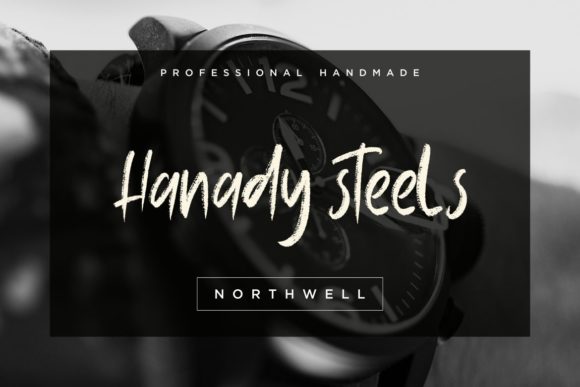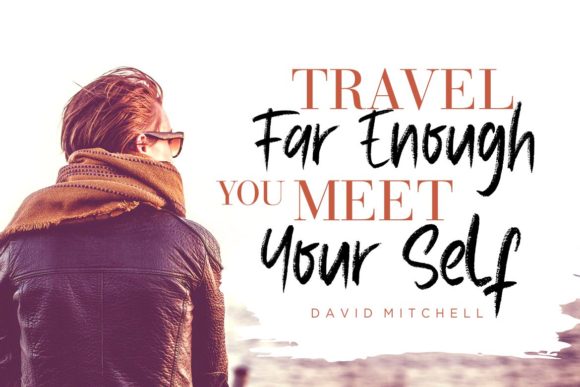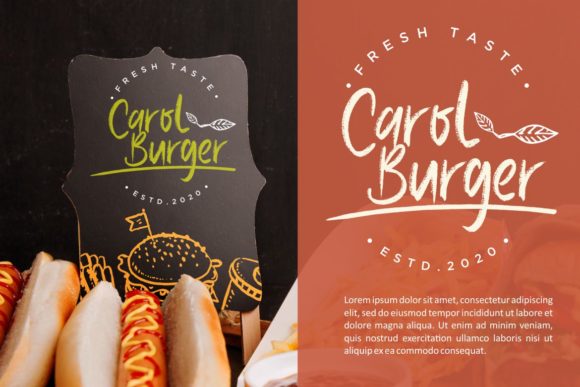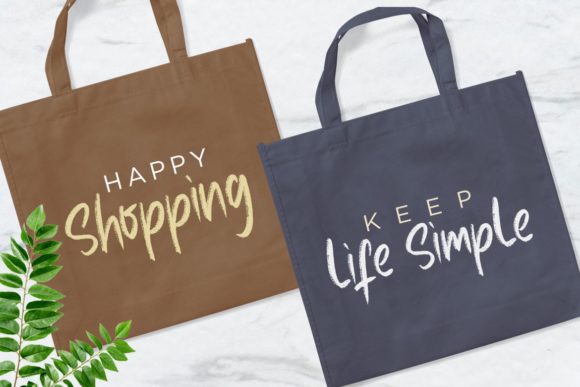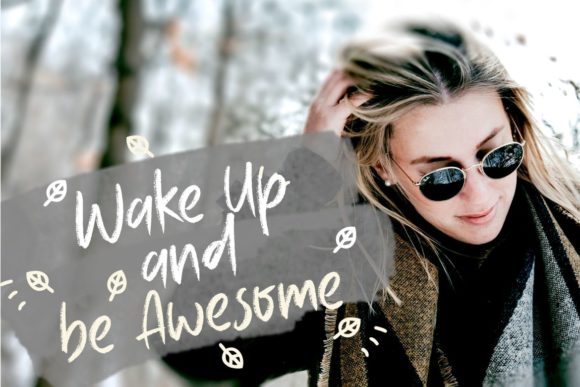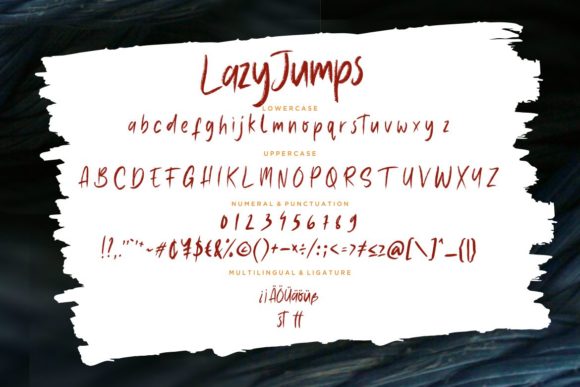
Introduction to Lazy Jumps Font
Remember that moment when a font choice completely transformed your creative project? For many designers, it’s a game-changer. It’s the difference between a design that feels professional and one that feels, well, lazy. But what if you could have a font that’s effortlessly cool, yet still high-quality and versatile? Enter the Lazy Jumps Font, a full handwritten sans serif font that’s perfect for adding a touch of natural movement to your designs.
This free download is a design resource that’s hard to resist, especially with its transparent background option. Whether you’re working on a creative project that needs a little extra flair or just want to add some personality to your branding materials, the Lazy Jumps Font is a valuable asset to have in your toolkit.
Key Features of Lazy Jumps Font
- Unique, hand-drawn design style suitable for creative projects and modern designs
- Features a transparent background, allowing for easy customization and layering
- High-quality design with precise lines and details, ideal for print and digital applications
- Comes in a single font size and resolution, suitable for a variety of design needs
- Perfect for designers looking for a creative, modern font to enhance their design projects
Honest Review: Lazy Jumps Font
I recently stumbled upon the Lazy Jumps Font while searching for a unique design resource for a creative project. The first thing that caught my attention was the quirky and playful style of the font. The font features a mix of bubbly and cursive elements that make it perfect for adding a touch of whimsy to your designs.
Here are some of the things that I think work well for this font: ✨ Unique style that adds a touch of personality to your designs ✨ High-quality design that looks great on a transparent background ✨ Free download option for those who want to try it out without committing to a purchase
However, I do have a few limitations to mention: ⚠️ Limited font sizes and styles available ⚠️ May not be suitable for professional or formal designs due to its playful nature
Overall, I think the Lazy Jumps Font is a great addition to any designer’s toolkit. It’s perfect for adding a touch of creativity to your designs, and the free download option makes it easy to try out without committing to a purchase. Just be aware of its limitations and use it accordingly.
- Perfect for creative projects that require a playful touch
- Great for adding a personal touch to your designs
- High-quality design that looks great on a transparent background
To get the most out of the Lazy Jumps Font, experiment with different font sizes, colors, and combinations to find the perfect look for your design. You can also use the font in conjunction with other design resources to create a unique and eye-catching design.
The Lazy Jumps Font is perfect for a variety of creative projects, including social media graphics, presentations, and posters. Its high-quality design and transparent background make it ideal for use in a variety of design applications.